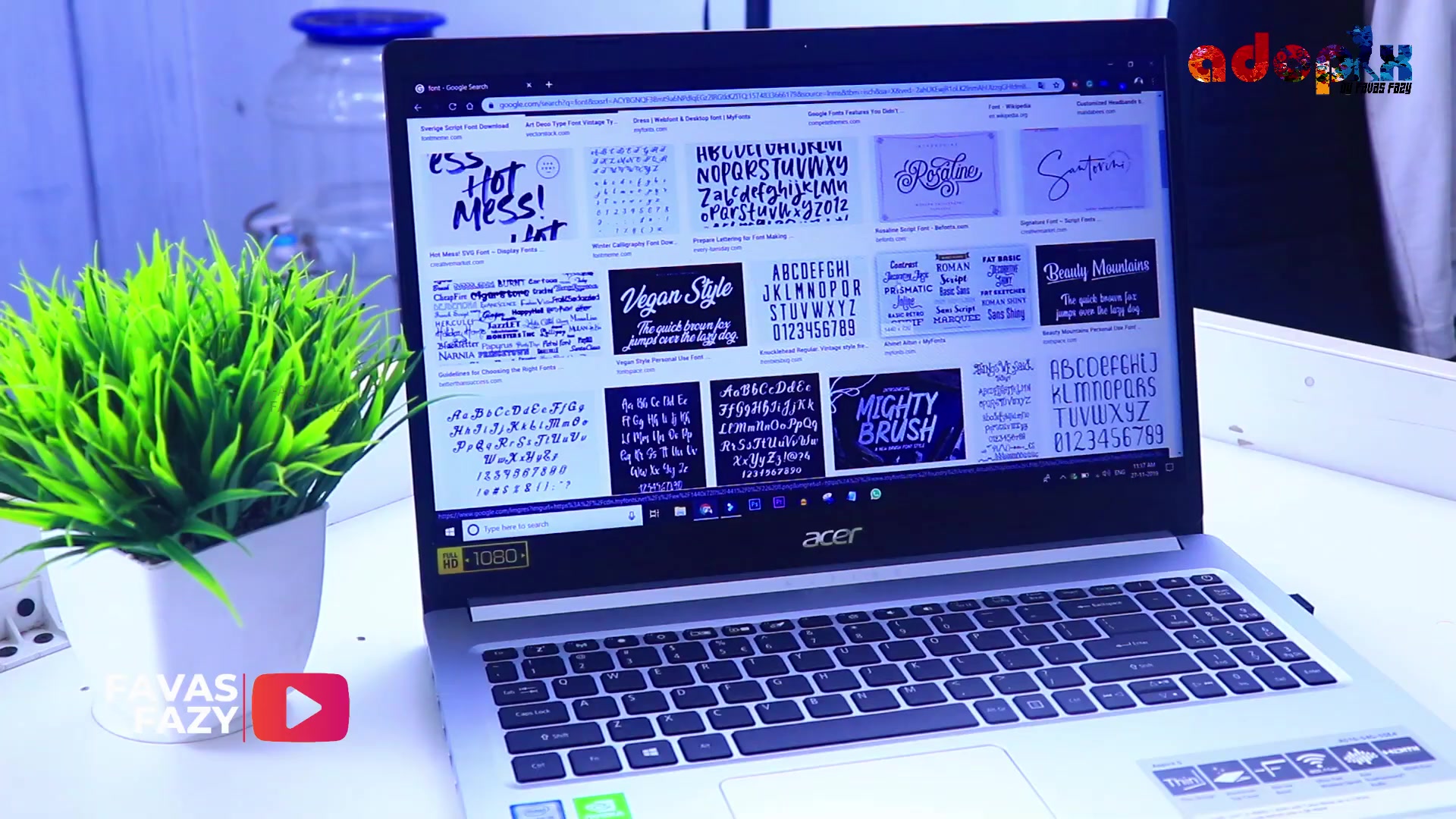
Effortlessly Identify Fonts: A Guide to Font Identification
Have you ever stumbled upon an amazing font in a photo, video, or website and wished you knew its name? Identifying fonts can be crucial for designers, marketers, and anyone who appreciates typography. Whether you're aiming to replicate a specific aesthetic or simply curious about a particular typeface, knowing how to identify fonts is a valuable skill. This comprehensive guide will walk you through the easiest and most effective methods to quickly identify fonts you encounter, saving you time and boosting your creative projects.
Key Points
Learn how to identify fonts from images or screenshots.
Discover tools that help you quickly find a font's name.
Understand the process of matching fonts for your design projects.
Explore websites that offer font identification services.
Improve your typography skills by easily recognizing different fonts.
Find fonts similar to a font you want if it does not exist.
Identifying Fonts: A Comprehensive Guide
Why is Font Identification Important?
Identifying fonts isn't just a matter of Curiosity; it's a practical skill with numerous applications. For designers, knowing the exact Font used in a project can ensure consistency and maintain a specific aesthetic.
Marketers might need to identify fonts used in competitors' campaigns to understand their branding strategies. Even for personal projects, being able to recognize and use different fonts can elevate the overall look and feel.
Moreover, identifying fonts can save a significant amount of time. Instead of manually scrolling through countless options trying to find the right match, you can use specific tools and methods to pinpoint the exact font or a very close alternative. This efficiency is particularly valuable when working on tight deadlines or large-Scale projects.
Benefits of Font Identification:
• Consistency in Design: Ensures your projects maintain a uniform look.
• Time-Saving: Quickly find the right font without endless searching.
• Inspiration: Discover new fonts and expand your typographic palette.
• Branding: Understand and replicate brand aesthetics effectively.
• Problem-Solving: Address font-related issues, such as missing fonts in a document.
Method 1: Using WhatFontis.com
WhatFontis.com is a powerful online tool specifically designed for font identification. It allows you to upload an image or provide a URL, and it uses advanced algorithms to analyze the font and provide a list of potential matches. The tool boasts an extensive database of fonts, making it highly effective in identifying both common and obscure typefaces.
This method is particularly useful when you encounter a font in a static image or a website screenshot. By simply uploading the image to WhatFontis.com, you can quickly receive a list of fonts that closely Resemble the one in the picture. This eliminates the need for manual searching and guessing, saving you valuable time and effort.
How to Use WhatFontis.com:
1. Capture the Font: Take a screenshot or save an image of the text containing the font you want to identify.
2. Visit WhatFontis.com: Go to the WhatFontis website (https://www.whatfontis.com/).
3. Upload the Image: Click the "Browse" button to upload your image from your computer or phone.
4. Identify Characters: The tool will attempt to identify the characters in the image. You may need to manually input some characters to improve accuracy.
5. Review the Results: WhatFontis.com will display a list of potential font matches, along with links to download or purchase the fonts.
Tips for Best Results:
• Ensure the image is clear and high-resolution.
• Crop the image to focus solely on the text.
• Manually correct any misidentified characters.
• Use text with a variety of characters for better matching.
Method 2: Using the WhatFont Chrome Extension
For identifying fonts directly on websites, the WhatFont Chrome extension is an invaluable tool. This extension allows you to hover over text on any webpage to Instantly reveal the font family, size, and color. It’s a quick and seamless way to identify fonts without needing to take screenshots or use external websites.
The WhatFont extension is incredibly user-friendly. Once installed, simply activate the extension, and then hover your Cursor over any text on a webpage. The font information will appear instantly, providing you with the details you need. This is particularly useful for designers who frequently browse websites for inspiration and want to quickly identify interesting fonts.
How to Use WhatFont Chrome Extension:
1. Install the Extension: Go to the Chrome Web Store and install the WhatFont extension.
2. Activate WhatFont: Click the WhatFont icon in your Chrome toolbar to activate the extension.
3. Hover Over Text: Hover your cursor over any text on a webpage to see the font details.
What is the difference between serif and sans-serif fonts?
Serif and sans-serif are two primary classifications of fonts, each with distinct characteristics that affect readability and visual appeal: Serif Fonts: Serif fonts have small decorative strokes (called serifs) at the end of each character. These strokes help guide the reader's eye and improve readability, especially in long passages of text. Serif fonts are often perceived as classic, traditional, and formal. Examples: Times New Roman, Georgia, Garamond. Sans-Serif Fonts: Sans-serif fonts lack these decorative strokes, resulting in a cleaner, more modern look. Sans-serif fonts are often preferred for headings, logos, and digital displays where readability is crucial at various screen resolutions. Examples: Arial, Helvetica, Open Sans. The choice between serif and sans-serif fonts depends on the context of your design and the message you want to convey. Serif fonts are often used for print materials like books and newspapers, while sans-serif fonts are commonly used for websites and digital interfaces. However, this choice comes down to preference and context.